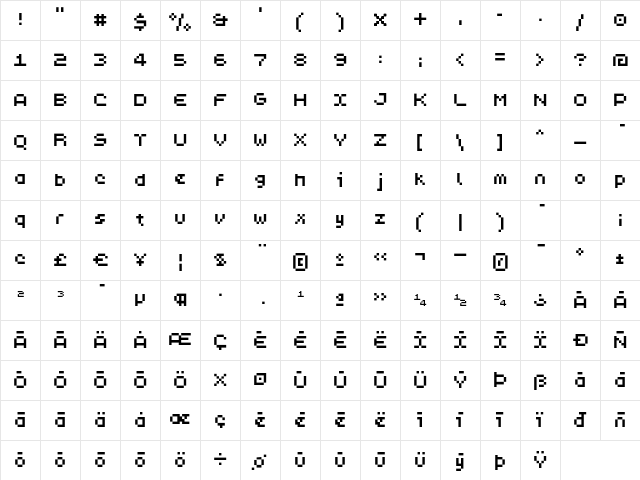
PixL Regular Free Font
PixL Regular
Design Context for PixL
PixL is a composed and adaptable typeface that performs quietly and consistently across a wide range of design contexts.